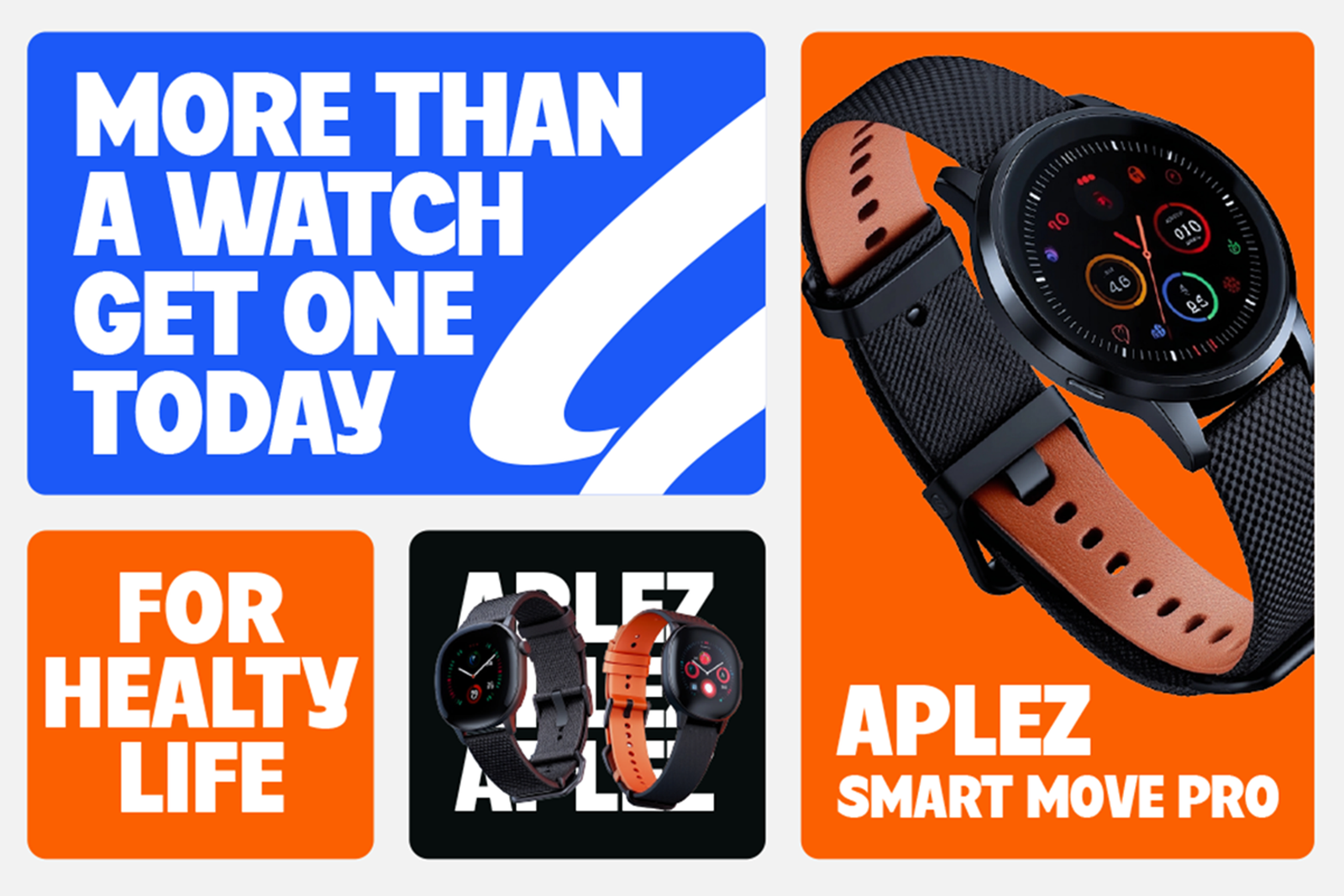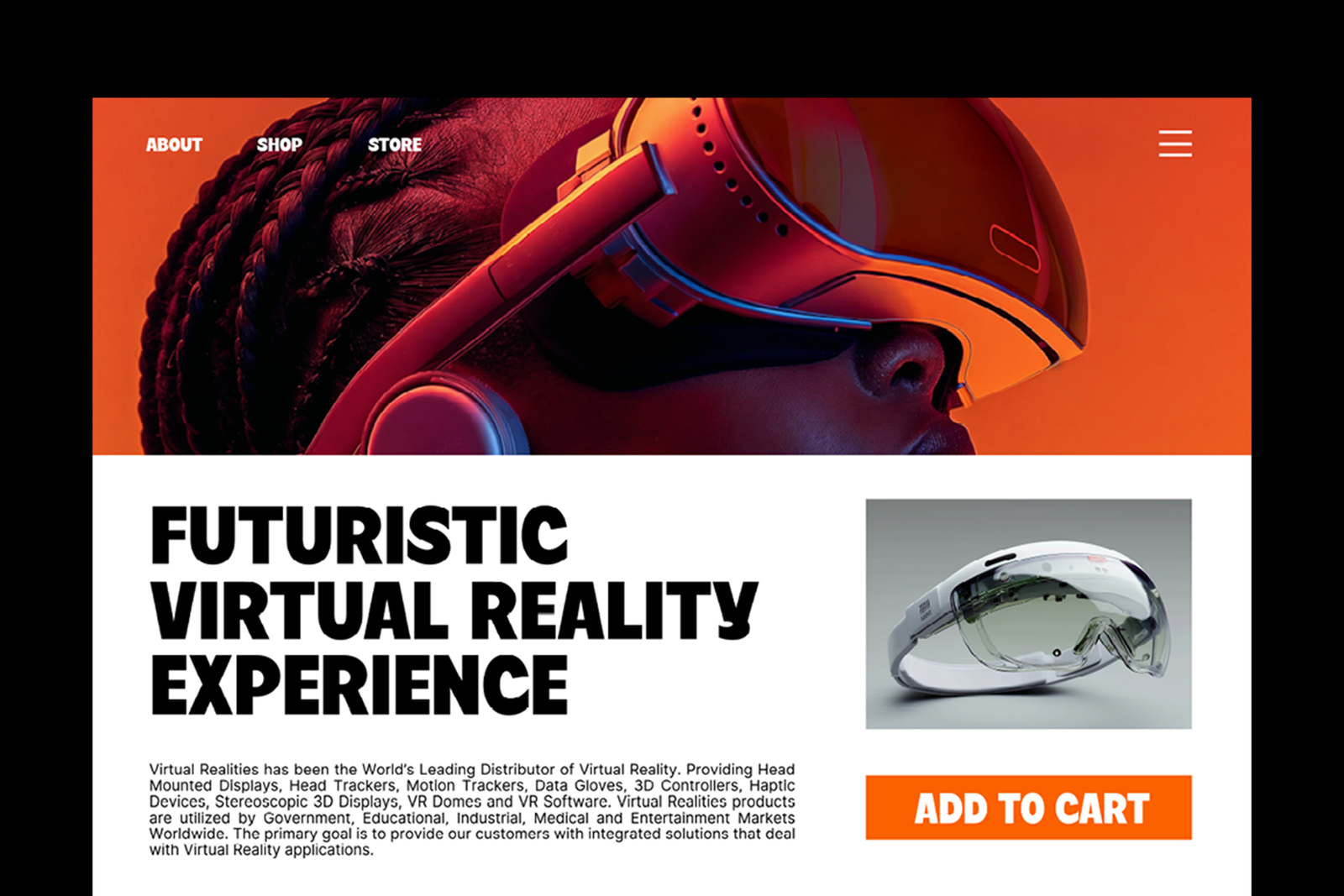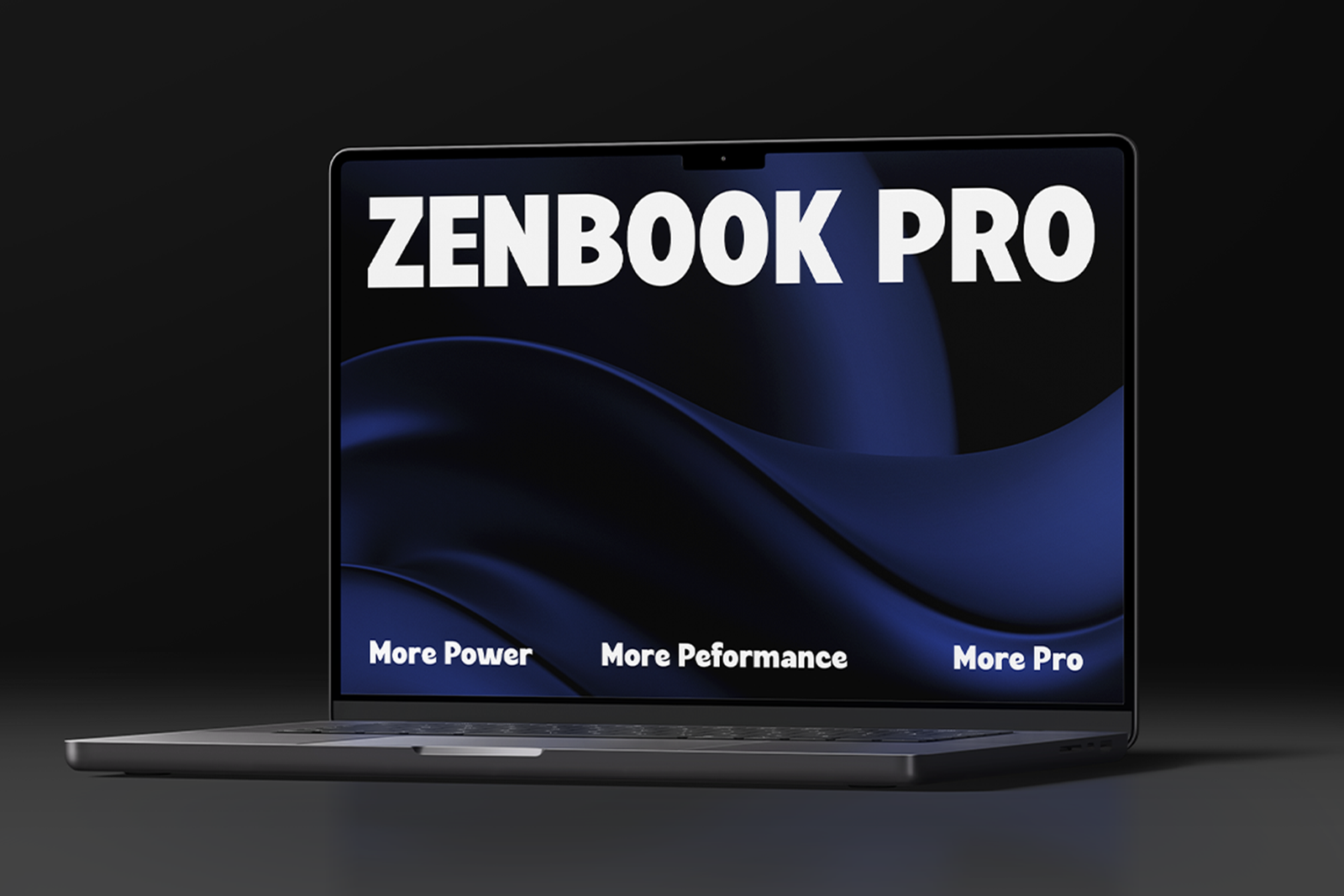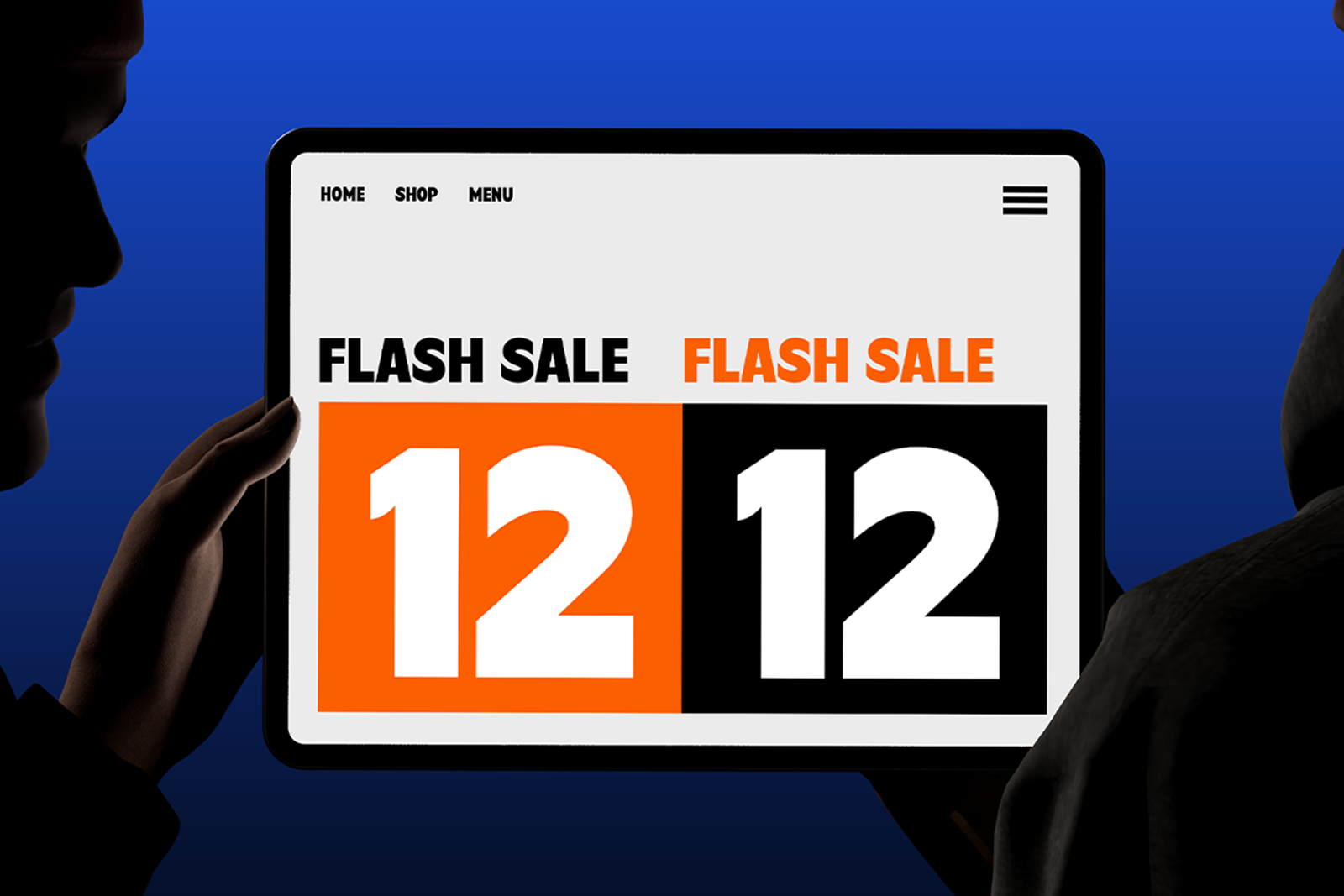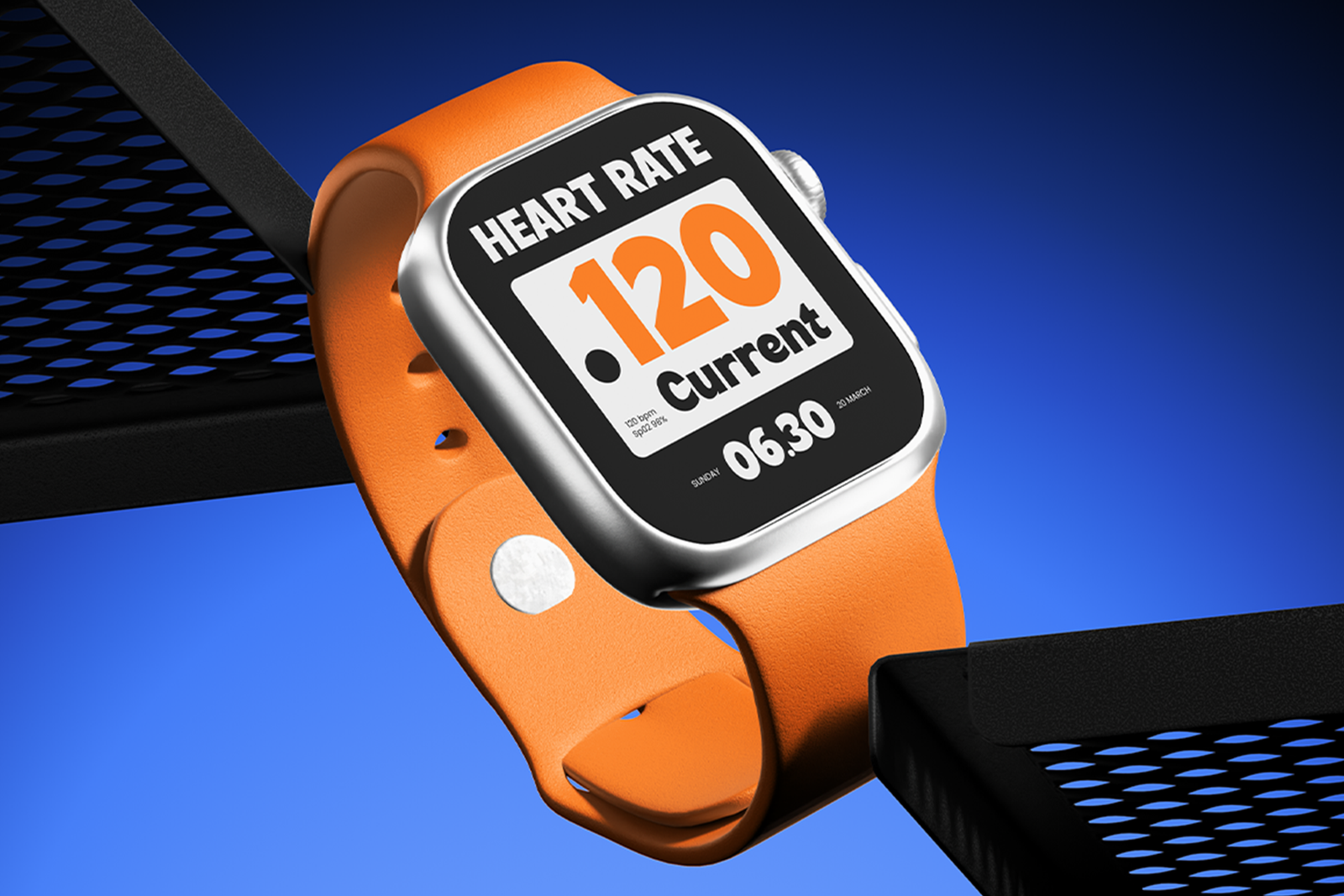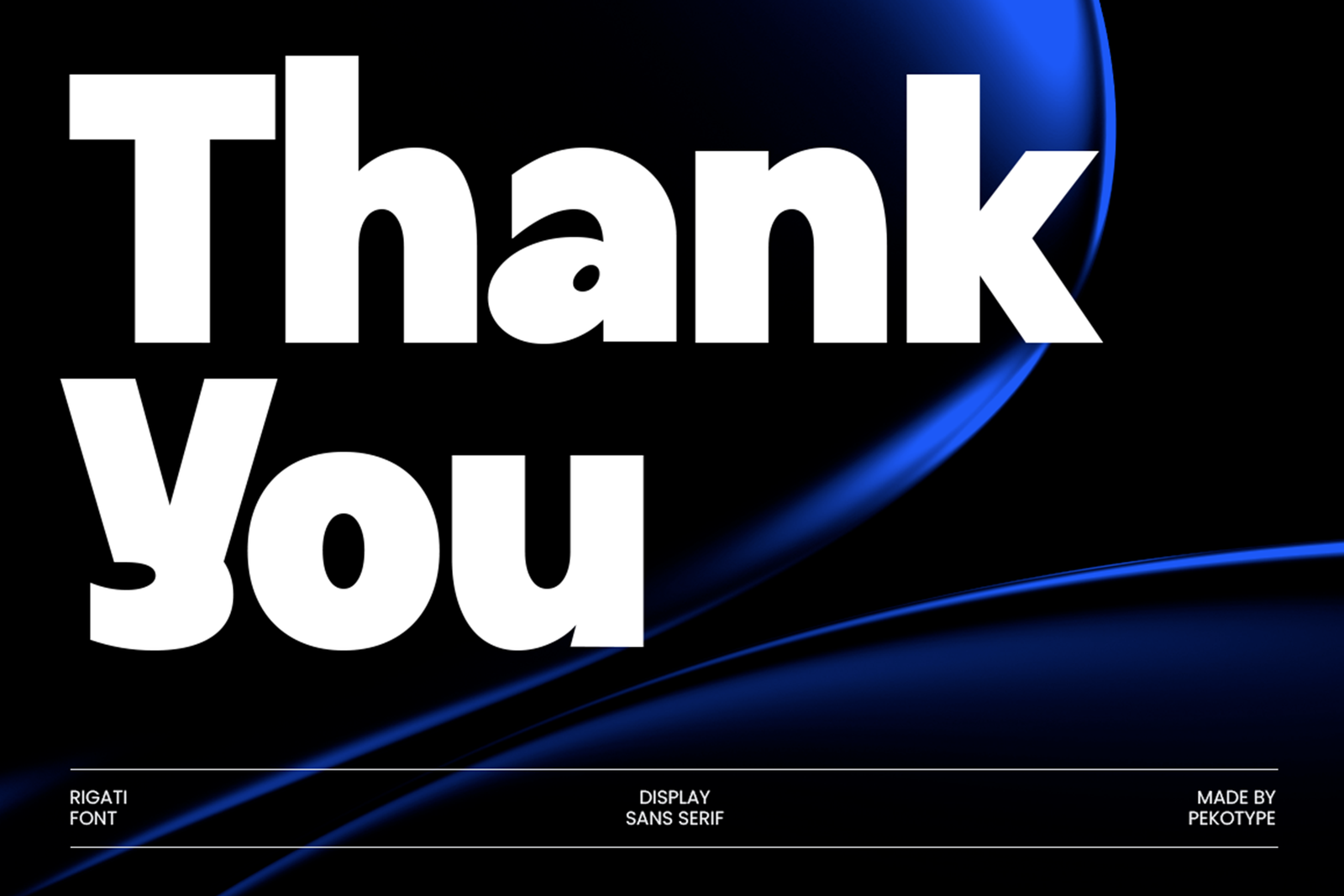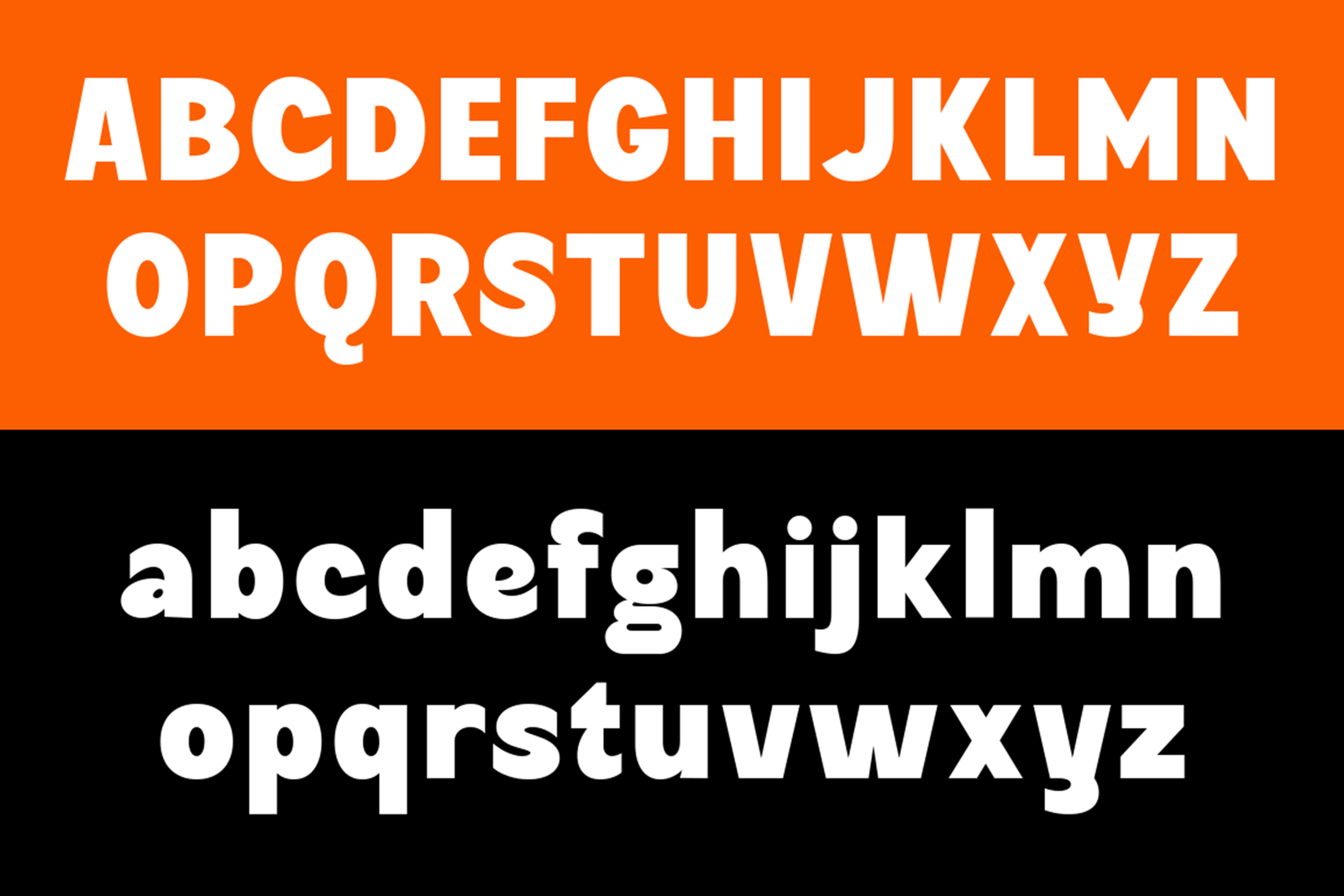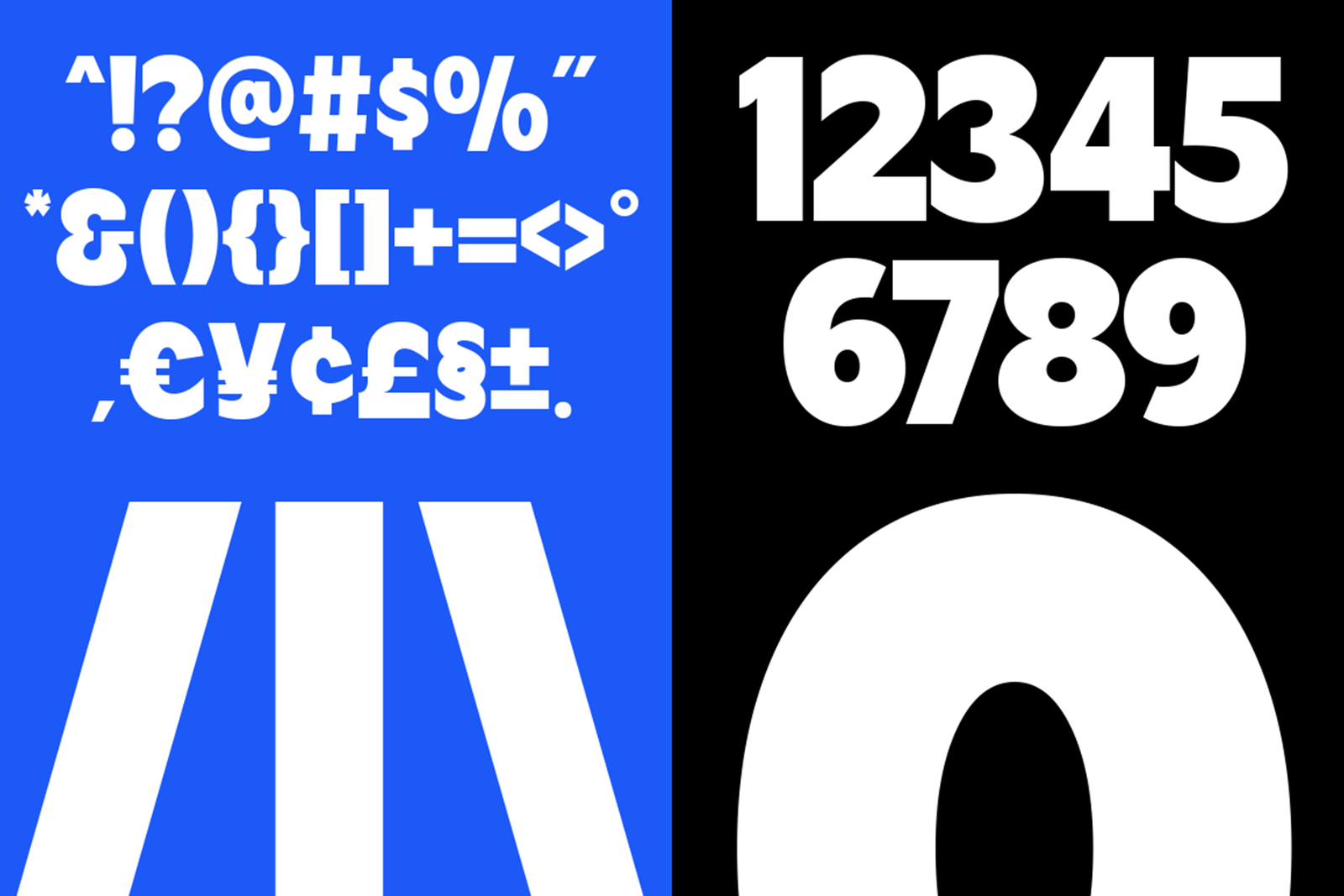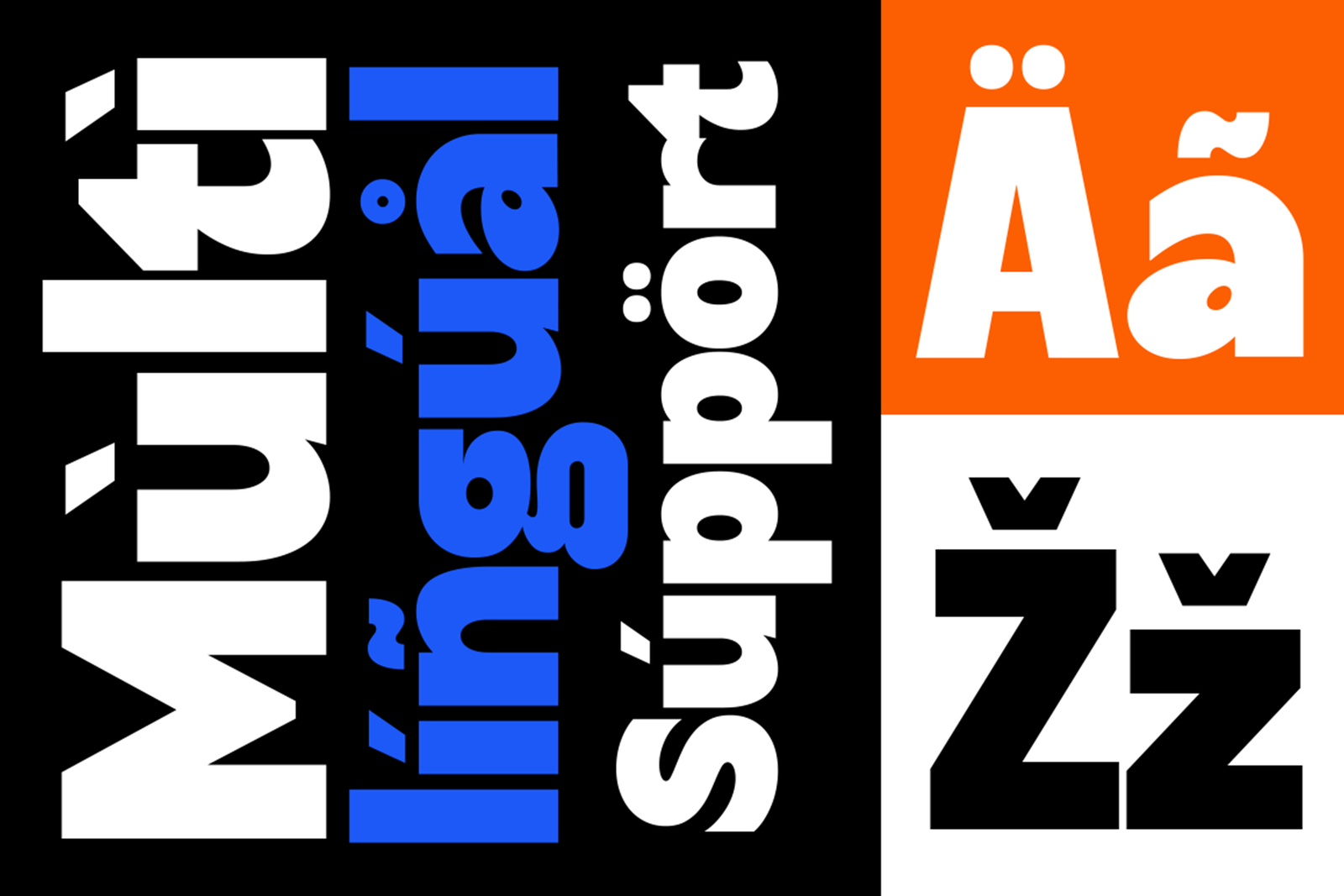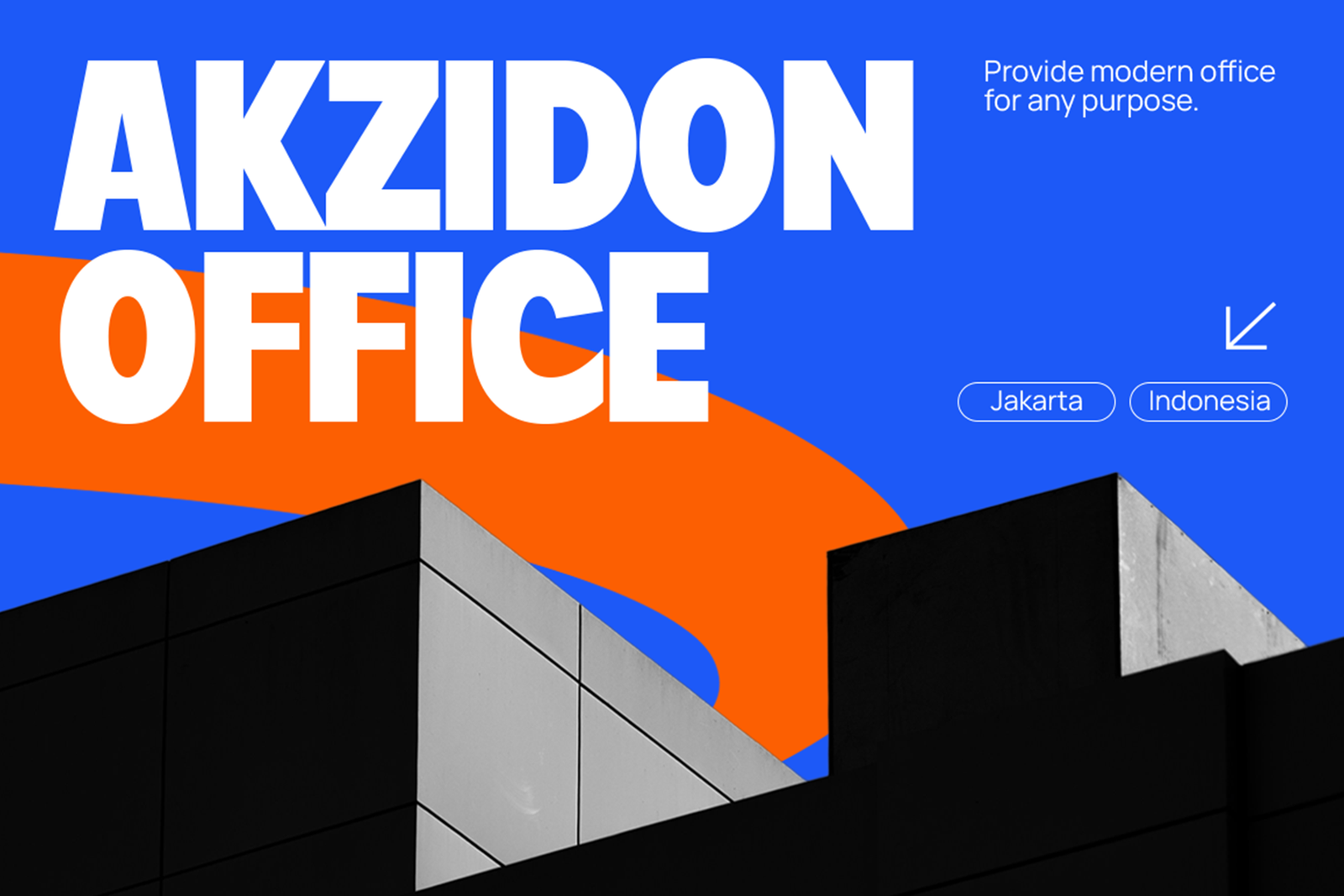
RIGATI Font – Bold Modern Geometric Display Font
RIGATI Font is a bold modern geometric display typeface designed to give your projects a sharp, futuristic, and professional look. Its clean shapes, strong proportions, and confident letterforms create a striking visual presence while keeping the text easy to read. The style feels sleek and premium, making it a great choice for contemporary designs.This font works beautifully for technology branding, logos, websites, app interfaces, posters, advertisements, product packaging, social media graphics, and modern visual identities. It is also suitable for startups, gadgets, digital products, sports graphics, futuristic campaigns, and promotional materials. Whether you are creating a tech logo, a bold headline, or a modern marketing layout, RIGATI Font helps your design look clean, powerful, and ready for the future.The font includes uppercase and lowercase letters, numbers, symbols, punctuation, and multilingual support for flexible creative use. It is suitable for both digital and print projects, from website headers and user interfaces to posters and packaging. RIGATI Font is a versatile choice for designers who want modern typography with a strong geometric character and a memorable visual impact. Its bold structure also makes short titles, promotional messages, and visual campaigns stand out clearly across different layouts and screen sizes effectively.
Features:- Uppercase and Lowercase
- Number, Symbol, & Punctuation
- Multilingual